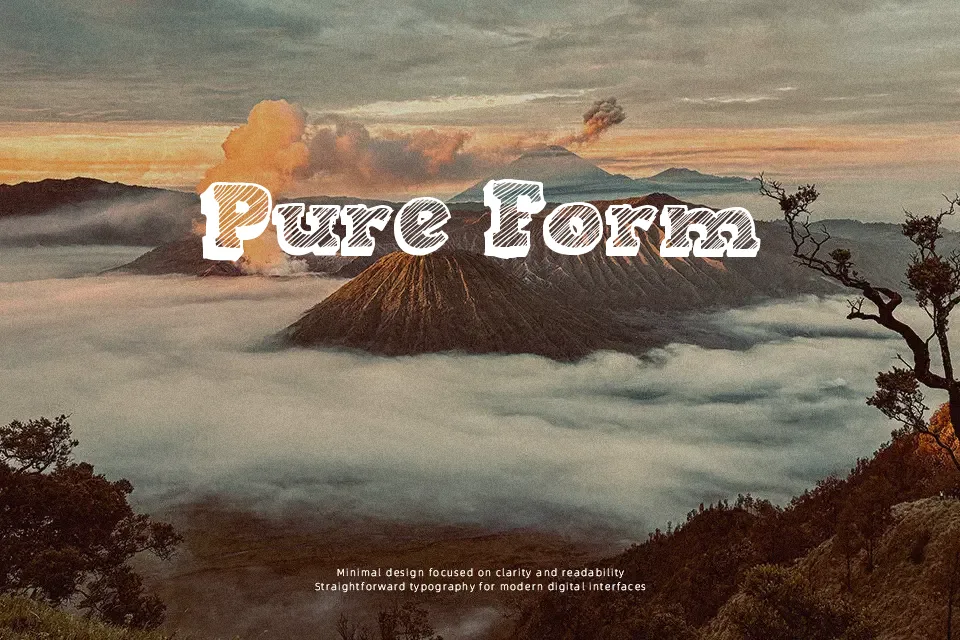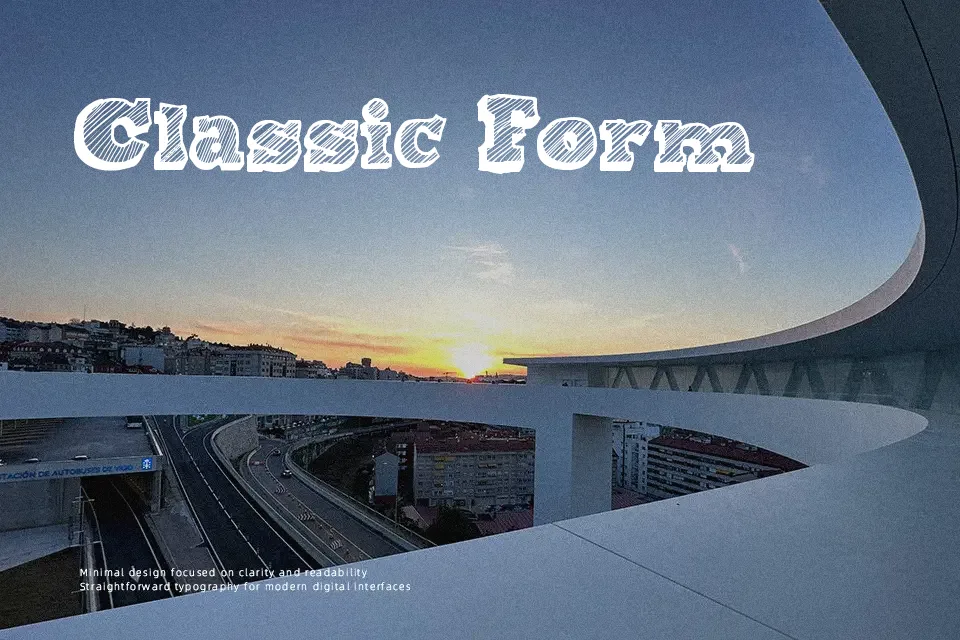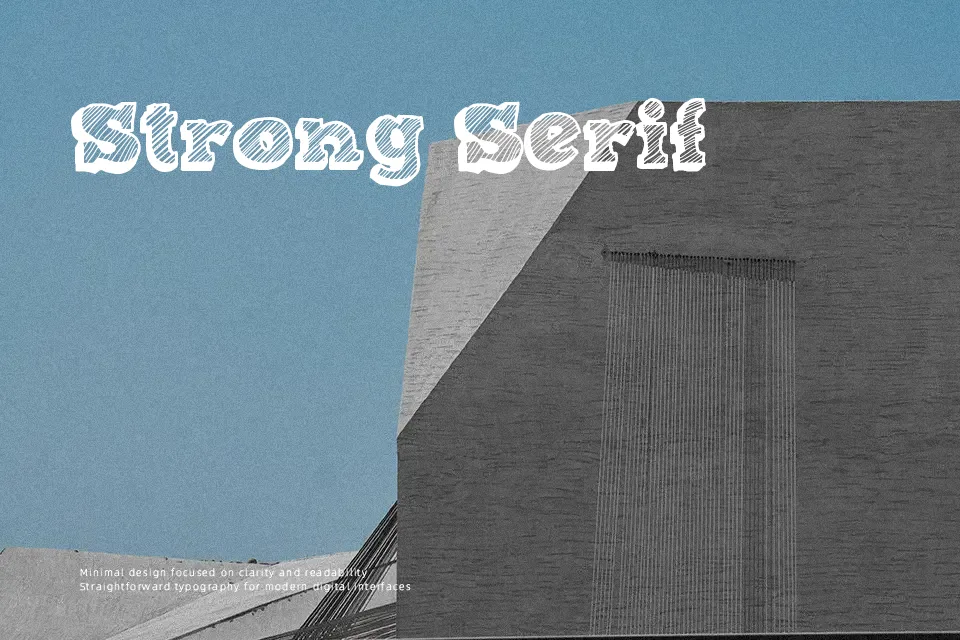
Sketch Nothing Font
Sketch Nothing Font features an illustrative sketched style characterized by loose pencil hatching, textured outer contours, and substantial letter weights. The typeface maintains consistent proportions across its uppercase and lowercase sets, pairing balanced letter spacing with energetic, hand-rendered internal strokes. At large display sizes, the open forms and distinctive scribbled shading give titles strong visual presence across indie band merchandise, event posters, and book covers. However, dense paragraphs and compact body text quickly suffer from visual clutter because the intricate interior strokes overwhelm small character counters. The textured shading preserves distinct character outlines in display applications, making the design well suited for bold titles that demand an artisanal, crafted aesthetic.
Best For: music festival posters, streetwear apparel graphics, indie album covers, craft beverage packaging
Not Ideal For: long paragraph text, mobile app interfaces, corporate annual reports, small legal disclaimers
Perfect for advertising, headline, and music, with a artistic and decorative style.